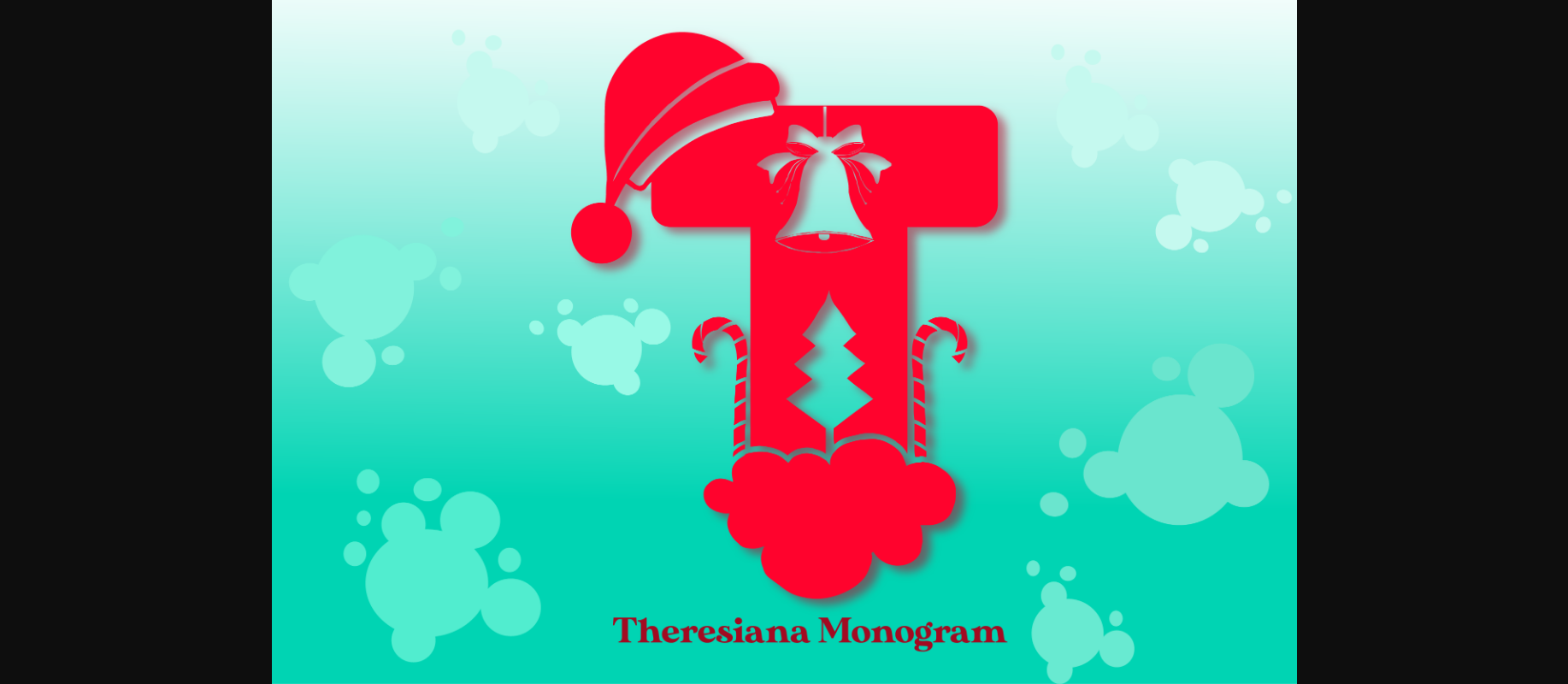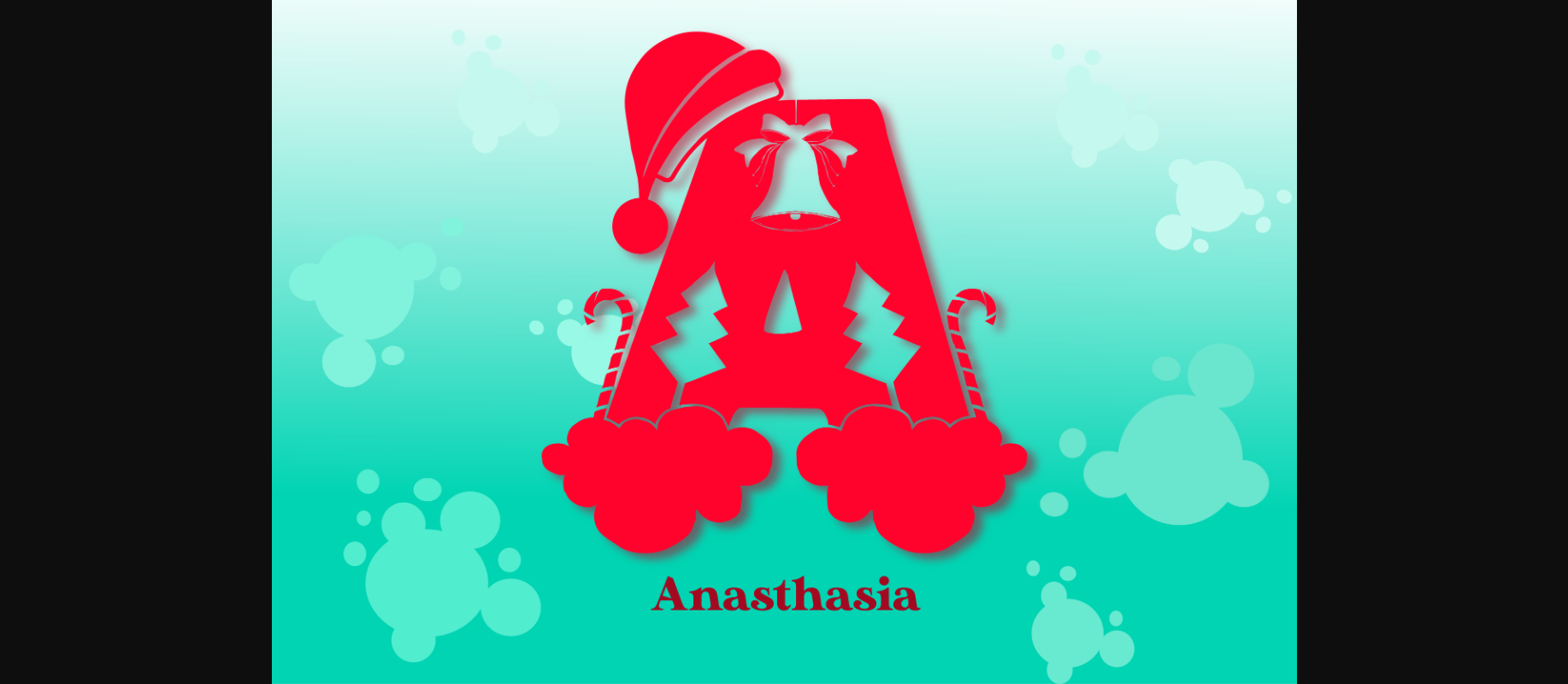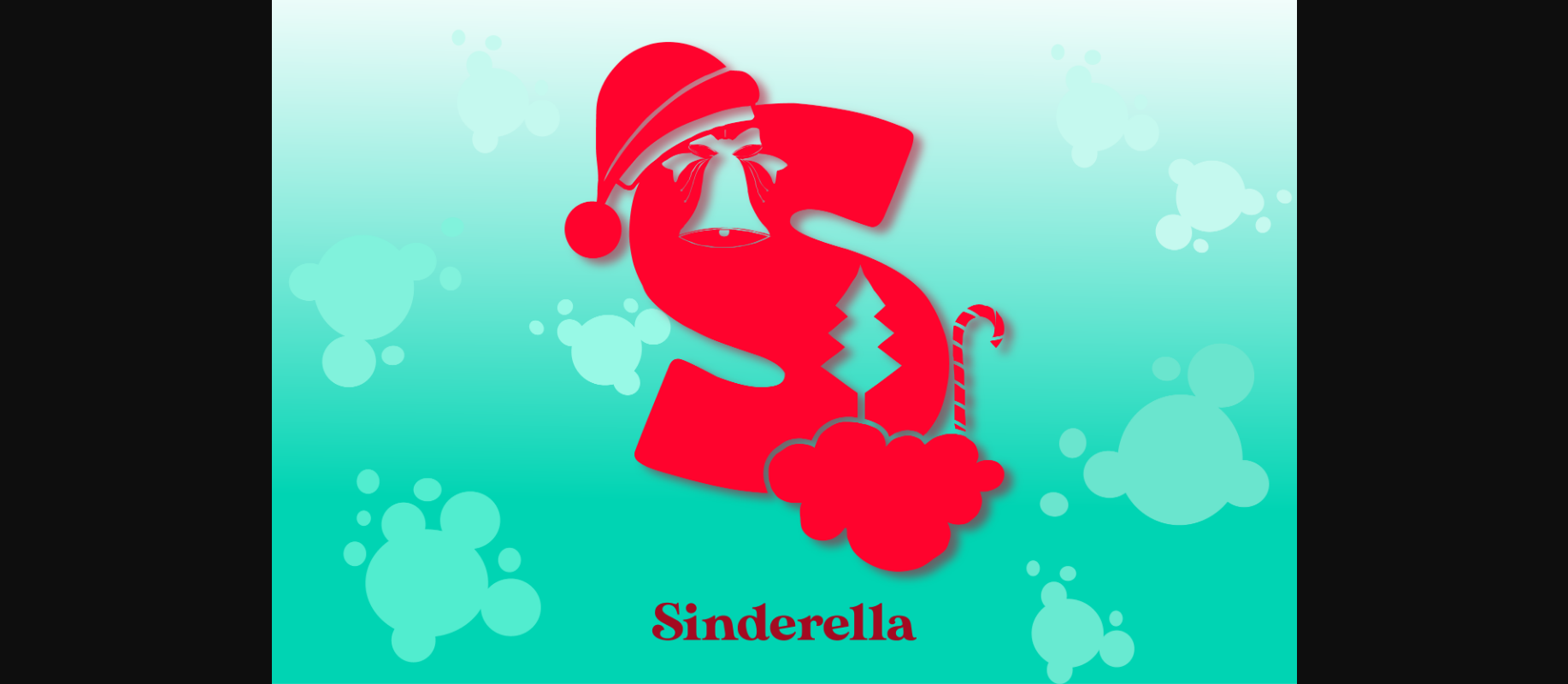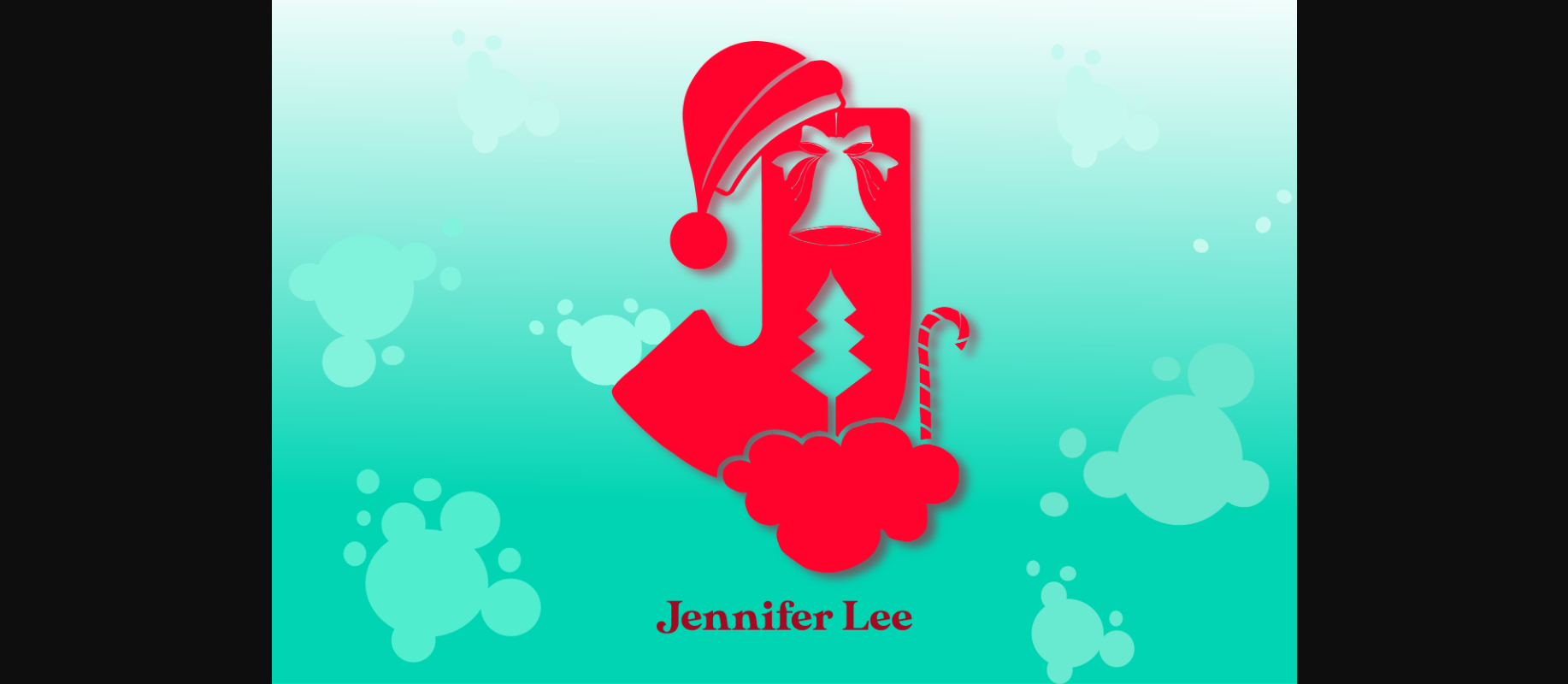
Theresiana Monogram Font
About Theresiana Monogram Font
Theresiana Monogram is a festive and warm looking decorative font. Whether you’re using it for winter decorations, holiday cards or invitations, this font in incredibly useful.